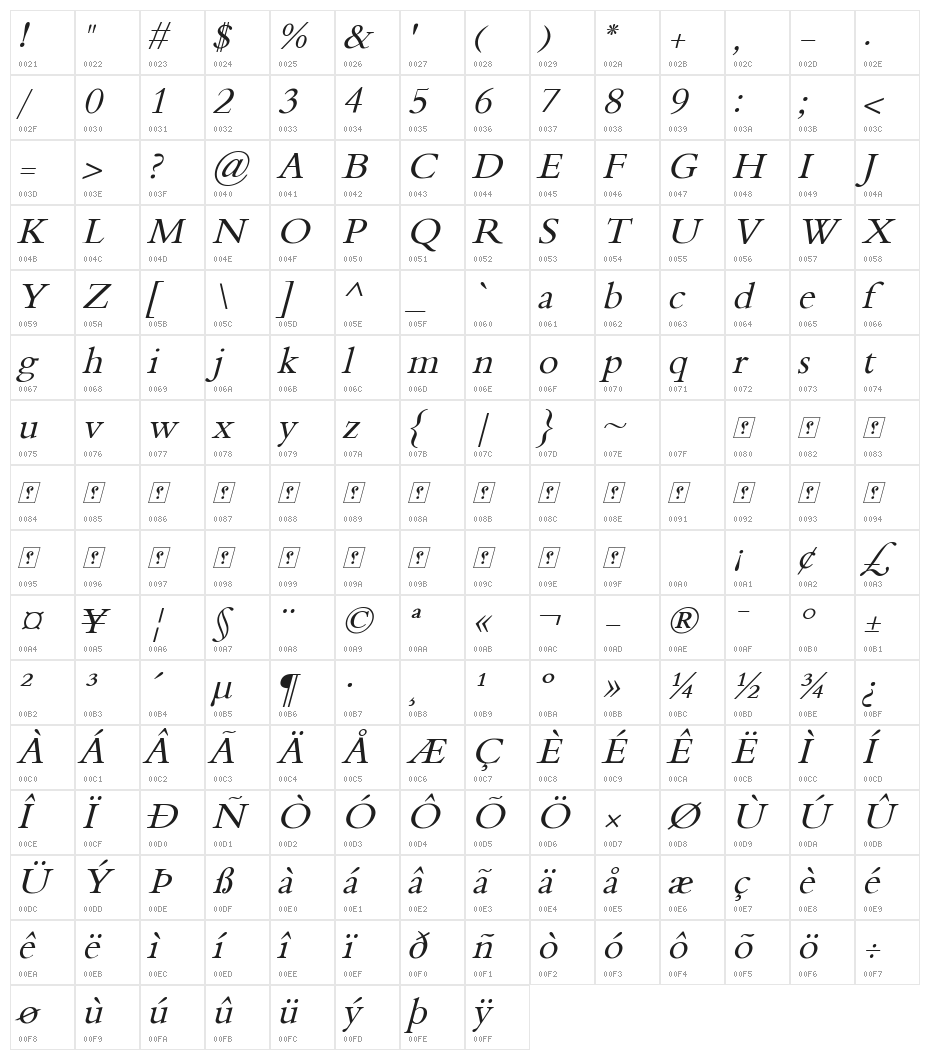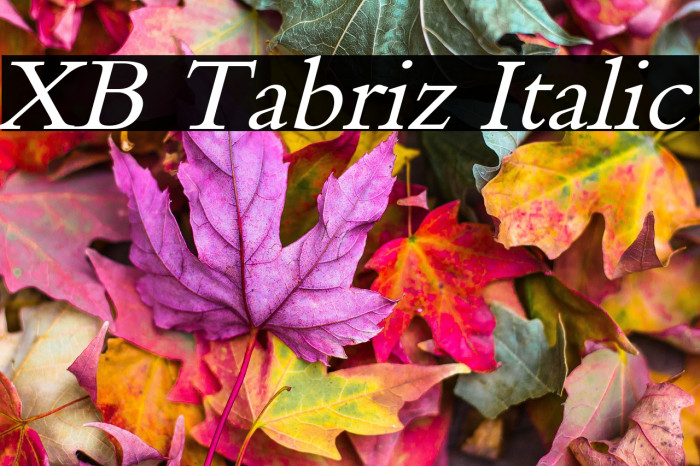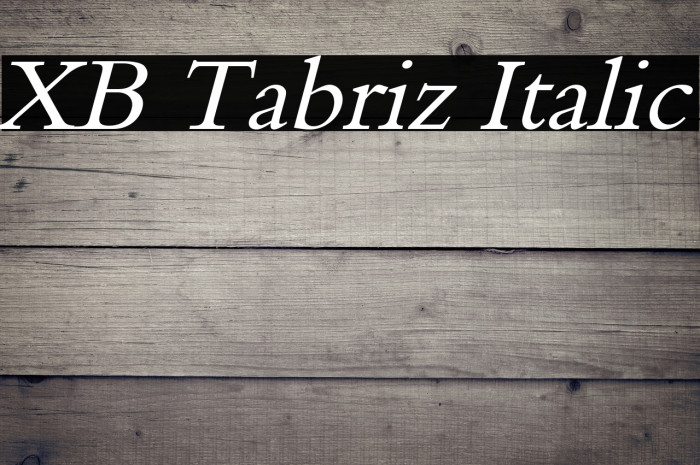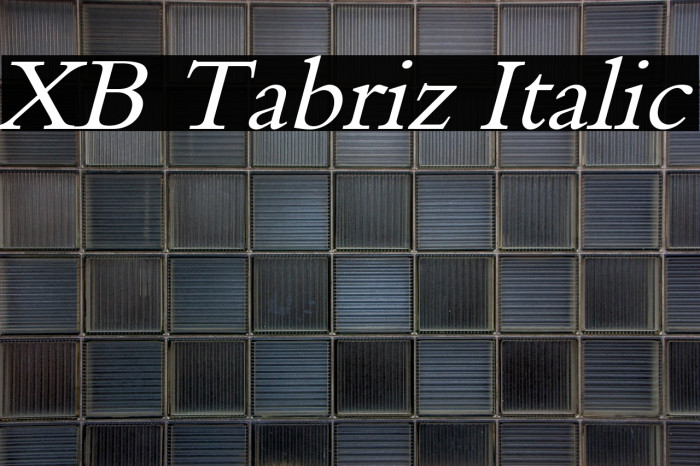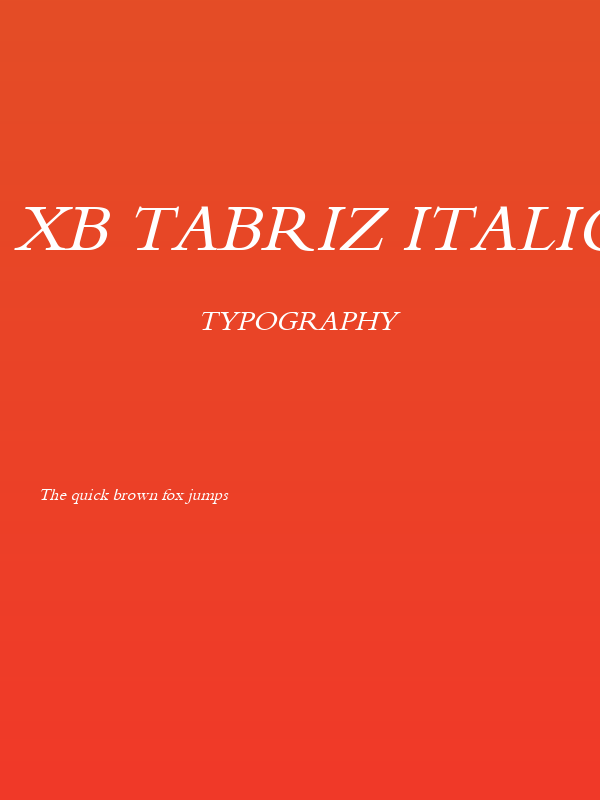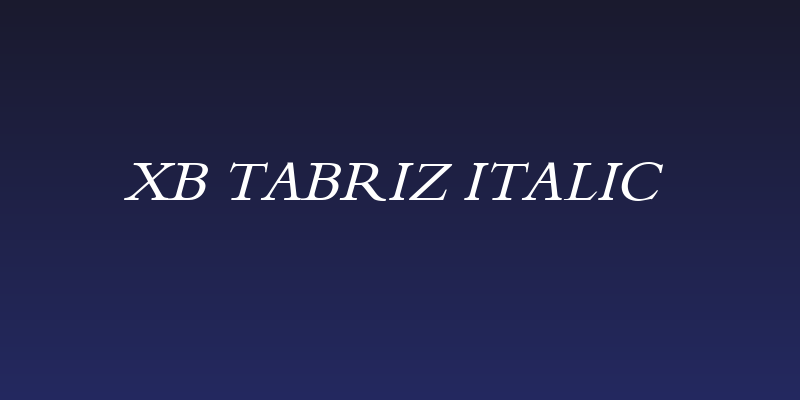
XB Tabriz Italic Font
XB Tabriz Italic Description
This elegant serif typeface features a sophisticated italic style, characterized by its graceful curves and refined serifs. The letters exhibit a slight slant, enhancing the classic and formal appearance. The uppercase letters are tall and commanding, while the lowercase letters maintain a consistent flow with smooth transitions. The numerals are proportionate and blend seamlessly with the alphabet, making them suitable for both text and display purposes. The special characters are well-crafted, maintaining the overall aesthetic of the font.
Overall StyleClassic
Proposed ProjectsIdeal for formal invitations, editorial design, book covers, and luxury branding.